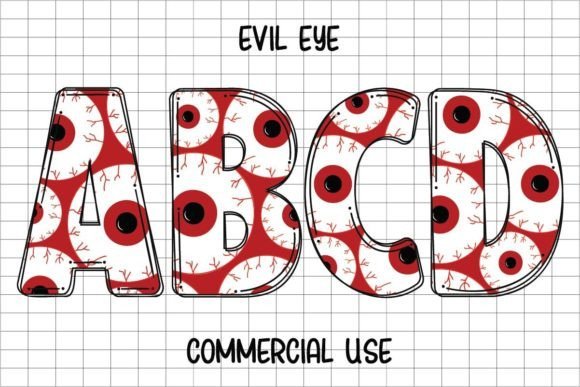
Adding a Pinch of Spooky Chic to Your Designs
Have you ever stared at a blank page, searching for that one element to bring your design to life? The perfect font can make all the difference, and that’s exactly what the Evil Eye Font offers. This adorable, Halloween-styled font is the perfect addition to any spooky or cute project.
Whether you’re crafting invitations for a horror movie night or creating adorable Halloween-themed accessories, the Evil Eye Font is sure to captivate your audience. Its intricate details and bold design make it a valuable asset for designers looking to add a touch of whimsy to their work. With its compatibility with popular cutting machines and design programs, you can easily integrate the Evil Eye Font into your next project.
- Unique Characteristics: Evil Eye Font features a unique blend of mystical and occult symbols, adding a touch of mystery and intrigue to any design.
- Character Set: The font includes a wide range of characters, including uppercase and lowercase letters, numbers, punctuation marks, and special symbols.
Evil Eye Font Review
Overall, I think the Evil Eye Font is a unique and stylish addition to any design project. ✨ The intricate details and mysterious aura it exudes are perfect for creating a sense of intrigue and mysticism.
One of the things that stands out about this font is its versatility. ✨ It can be used for a wide range of projects, from branding and marketing materials to graphic novels and fantasy-themed websites.
- The font’s mysterious and mystical vibe is perfect for creating a sense of intrigue and mysticism.
- The intricate details and ornate design make it stand out from more basic fonts.
- Its versatility makes it suitable for a wide range of projects.
- ⚠️ The font can be overwhelming if used too extensively. It’s best to use it in moderation to avoid overwhelming the viewer.
- ⚠️ The font may not be suitable for projects that require a more straightforward and clean design.
Overall, I think the Evil Eye Font is a great addition to any designer’s toolkit. While it may have some limitations, its unique style and versatility make it a valuable asset for creating engaging and mysterious designs.
Tips for Getting the Most Out of the Evil Eye Font
For best results, use the Evil Eye font in bold or italic styles to add emphasis to your text. You can also experiment with different font sizes and colors to create a unique visual effect. Additionally, consider pairing the Evil Eye font with other bold or decorative fonts to create a striking design.
The Evil Eye font is perfect for creating spooky or mystical designs, such as for Halloween or occult-themed projects. It’s also great for adding a touch of elegance or sophistication to your designs, such as for wedding invitations or luxury branding.